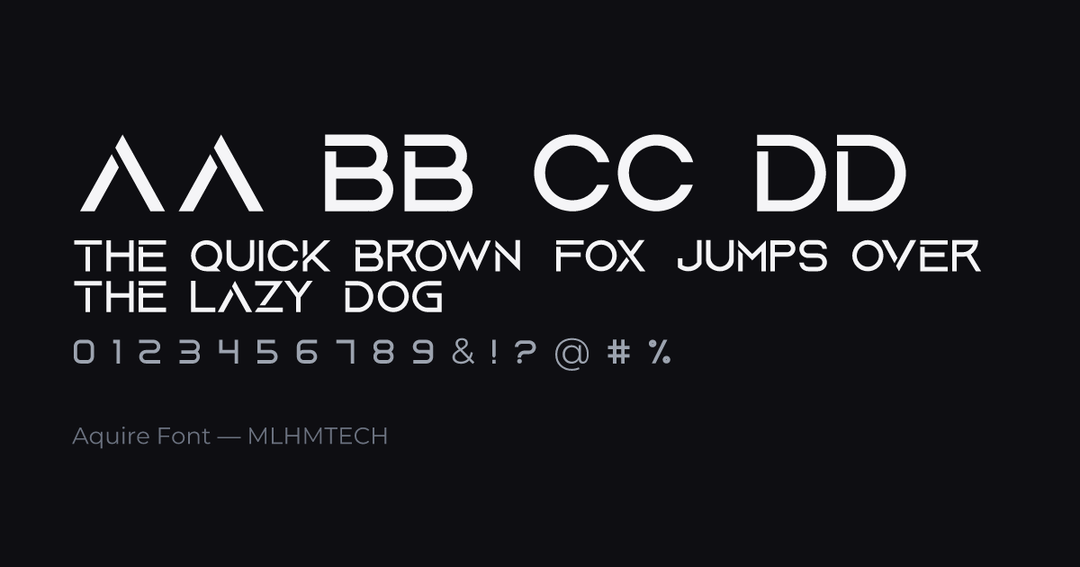
Aquire Font
Aquire is a modern display font with clean lines and a bold presence, ideal for logos, headlines, and branding.
Aquire is a contemporary display font that brings a clean and bold aesthetic to your projects. Its geometric sans-serif design ensures high legibility while adding a touch of sophistication. Perfect for headlines, logos, posters, and any design that needs to stand out.